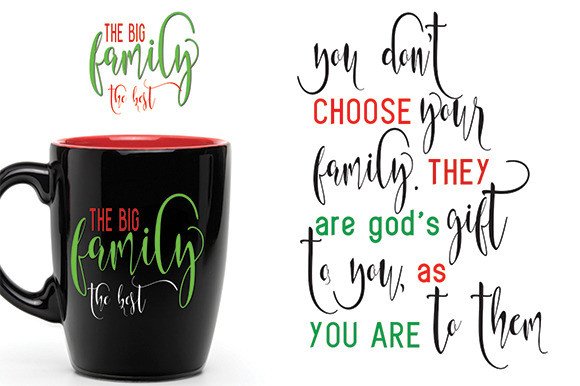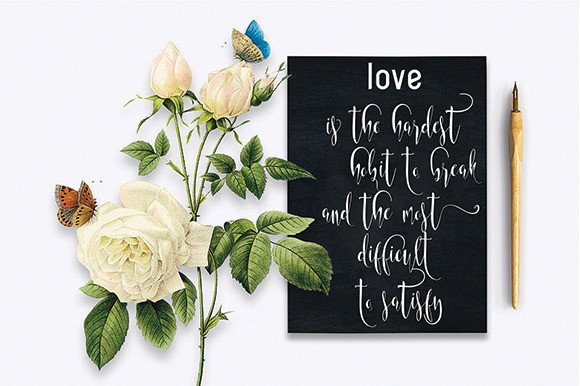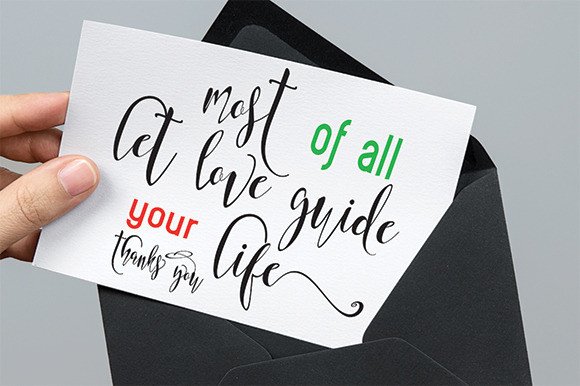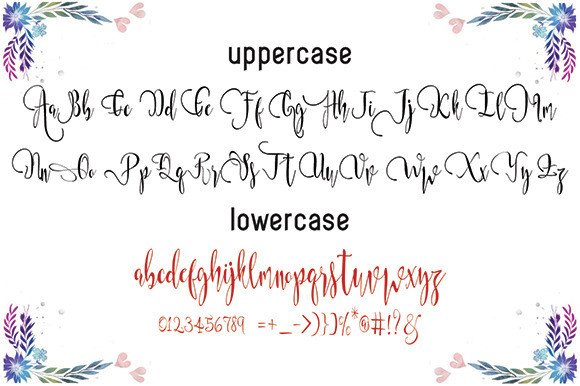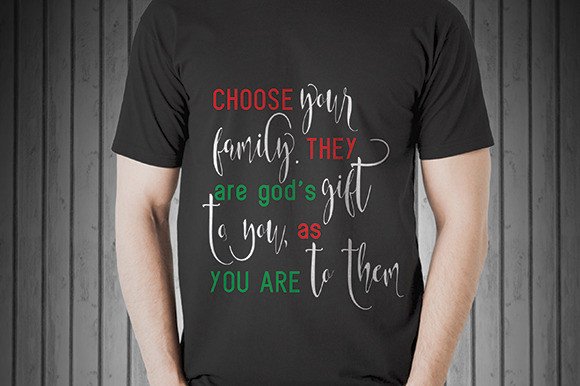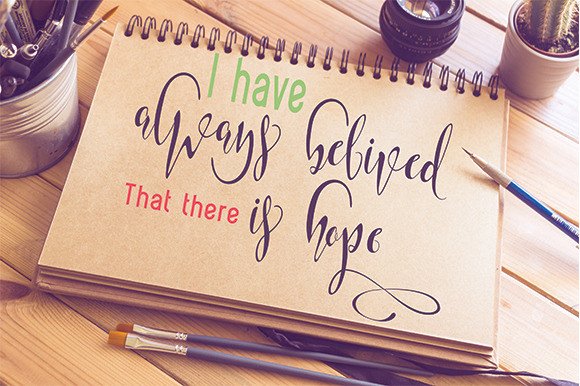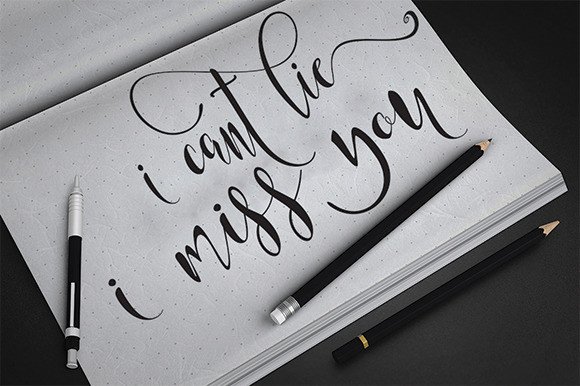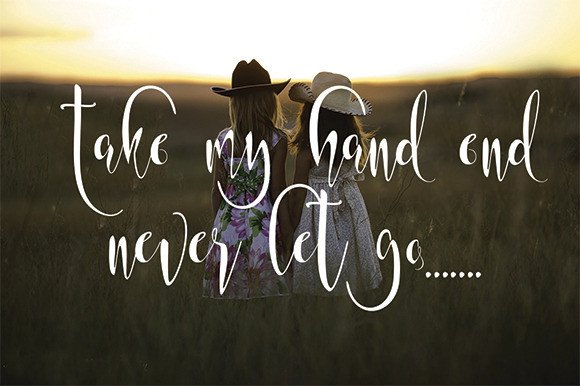
Master Faith Font
About Master Faith Font
Master faith can be used for various purposes such as titles, signatures, logo’s, correspondences, wedding invitations, letterheads, signage’s, labels, newsletters, posters, badges and much more!
Master faith features + 543 glyphs